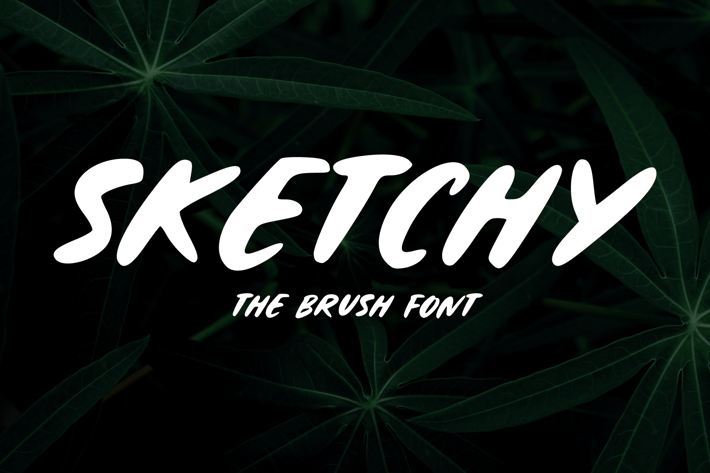
Sketchy - The Brush Font
Sketchy - The Brush Font, every single letter has been carefully crafted to make your text looks beautiful. it's perfect for logos, name cards, magazine layouts, invitations, headers, or even large-scale artwork.
- Sketchy font including upper & lowercase characters, numerals and more of symbols.